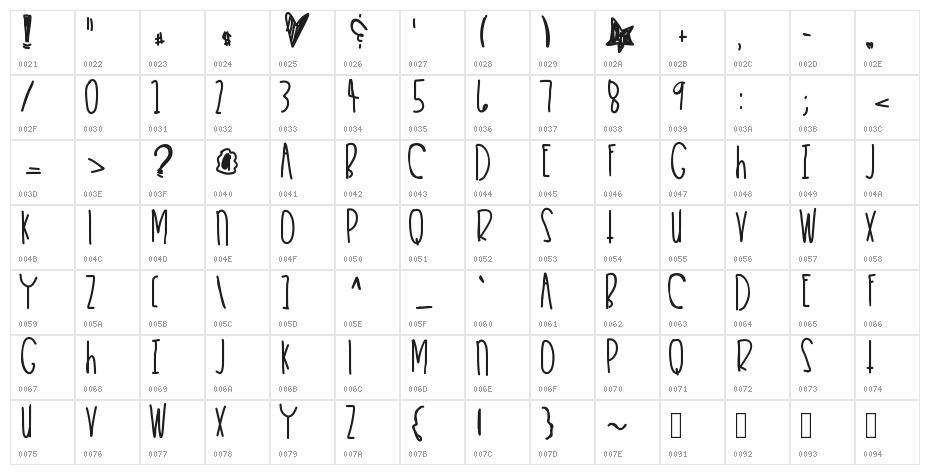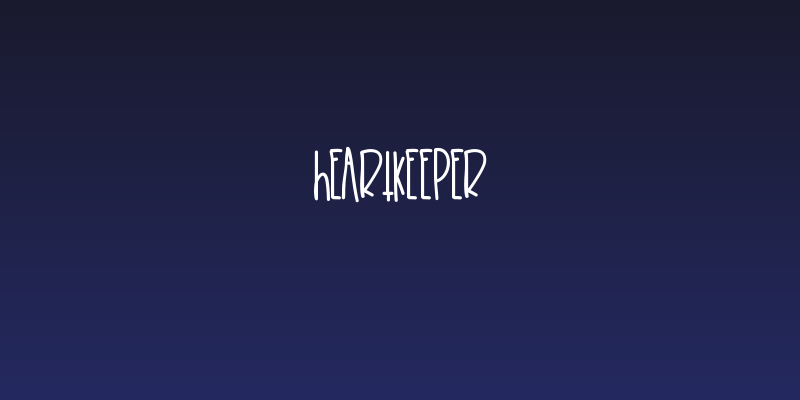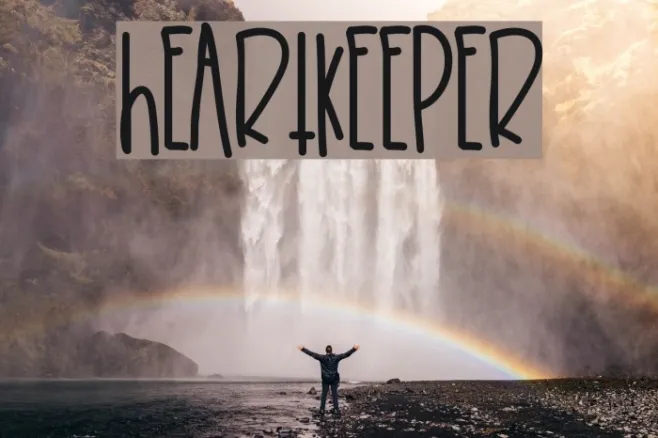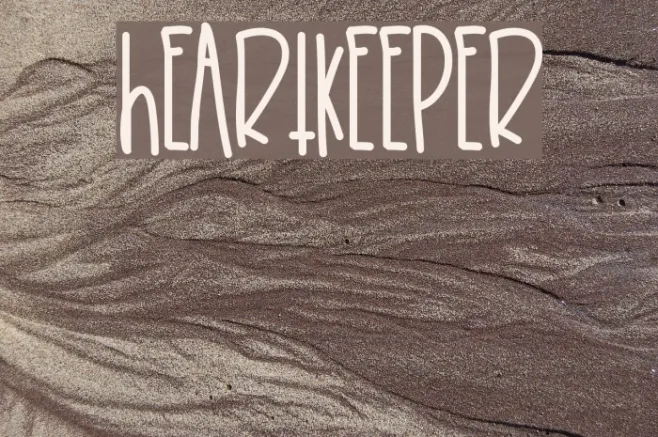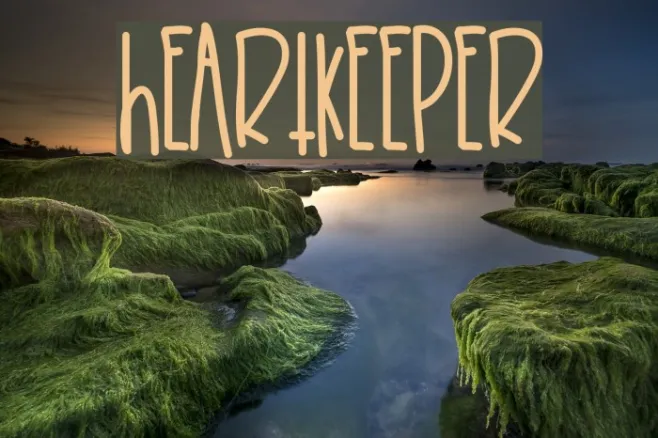
HeartKeeper Font
HeartKeeper Description
This playful and whimsical font features tall, narrow letters with a hand-drawn aesthetic. The characters have a consistent stroke width, giving them a uniform appearance despite their quirky style. The uppercase and lowercase letters maintain a similar height, creating a cohesive look. The numbers and special characters are equally playful, with unique shapes that add to the font's charm. The overall design is casual and friendly, making it suitable for projects that require a personal touch.
HEARTKEEPER UPPERCASE
HEARTKEEPER LOWERCASE
HEARTKEEPER OTHER CHARS